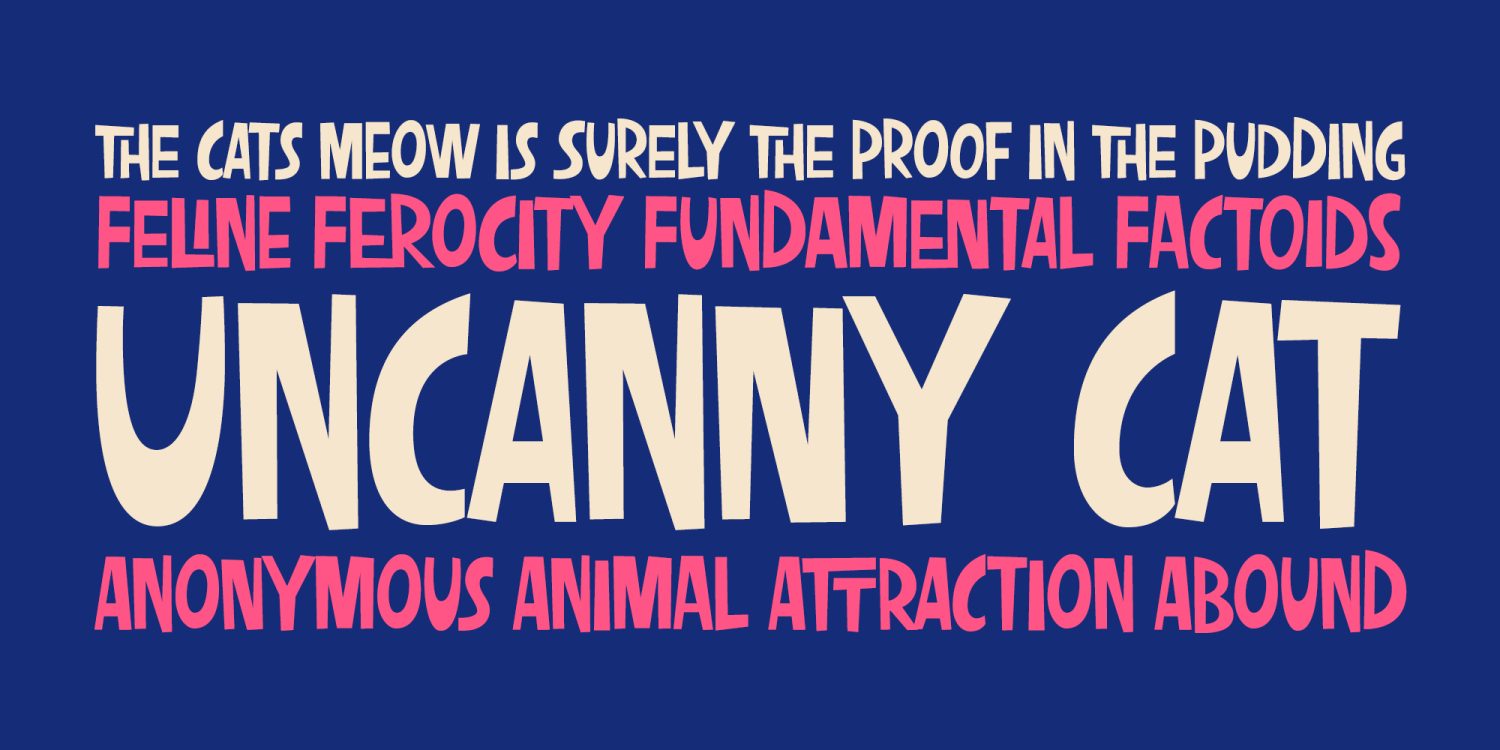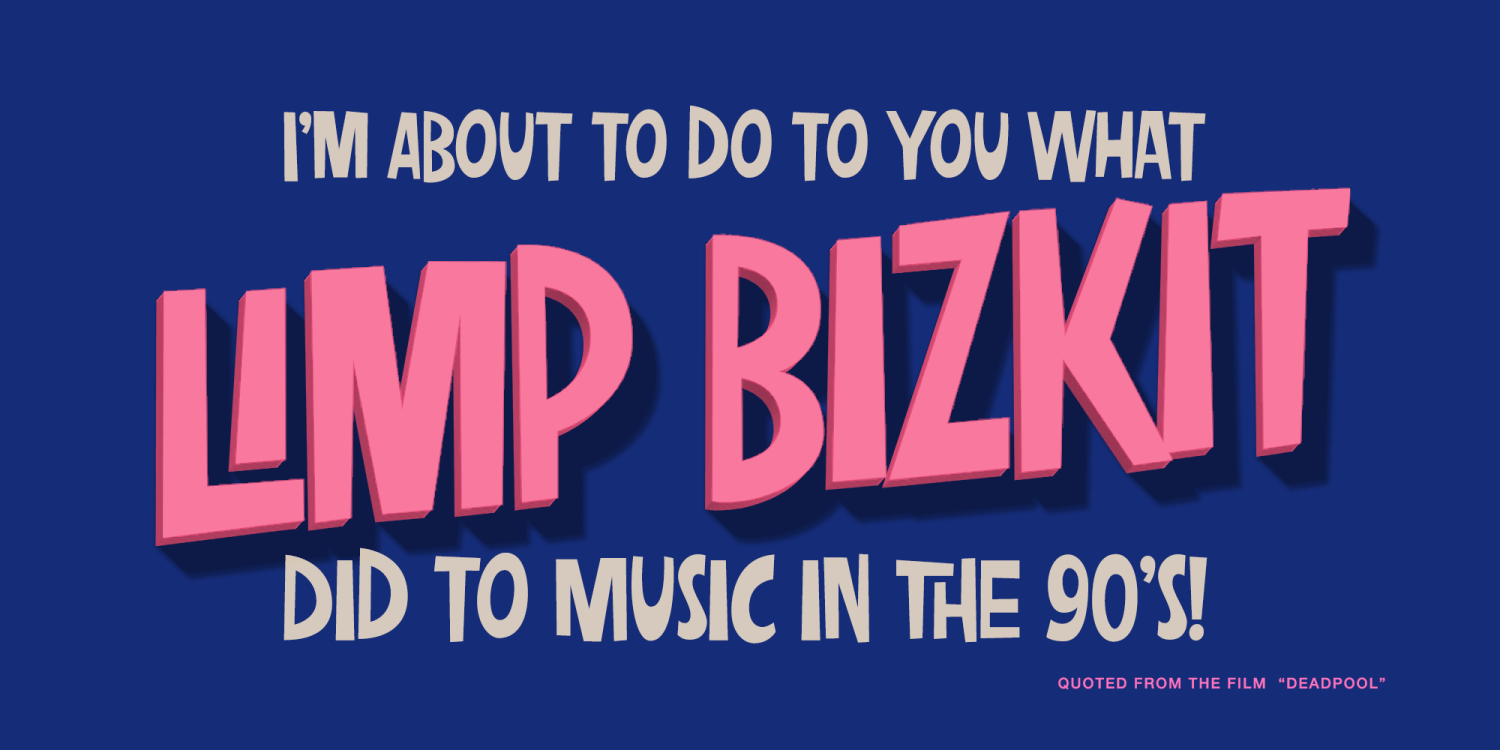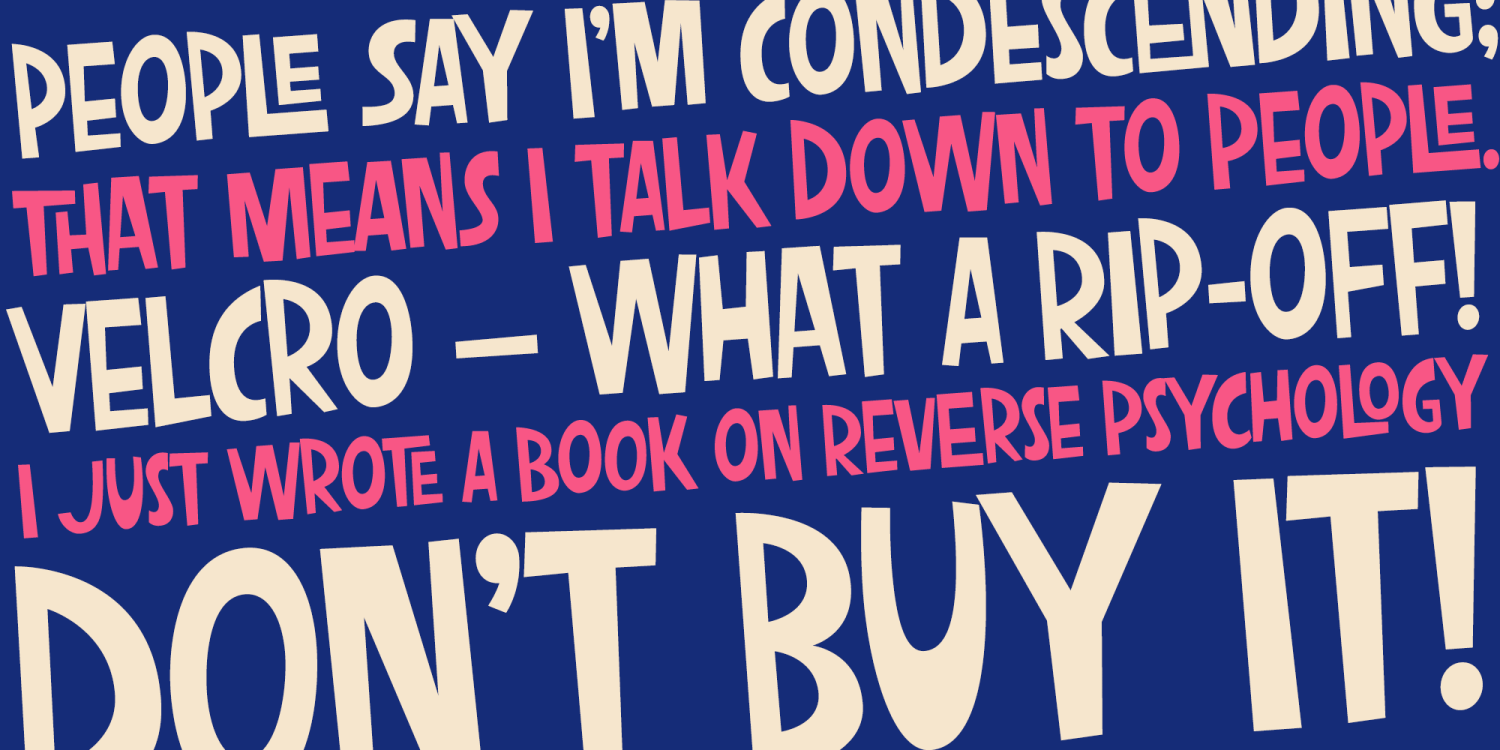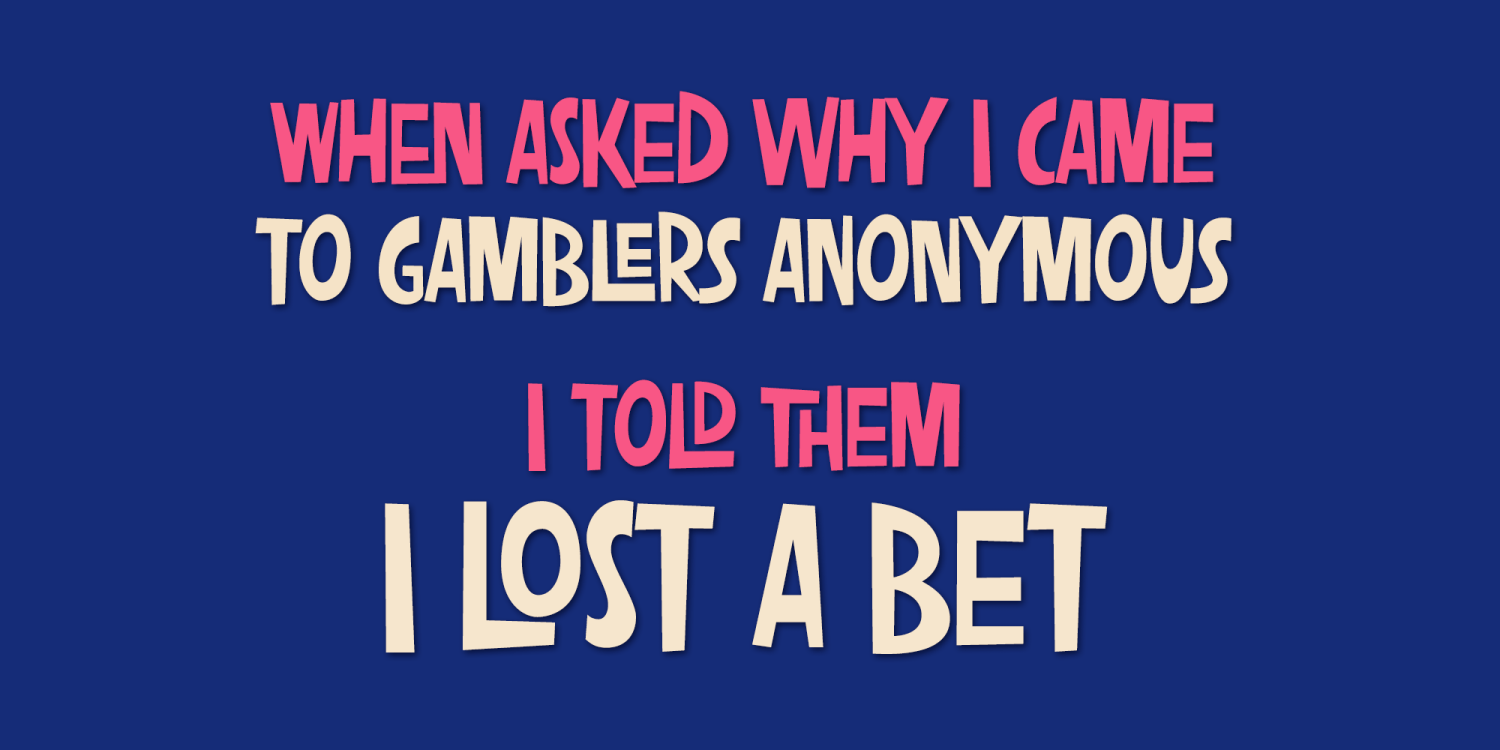
Uncanny Cat PB
Font Family by Pink Broccoli
Inspired by the 1977 anthology horror film called "Uncanny", Uncanny Cat PB captures all the awkward fun of the film's titling sequence. Feline revenge has never looked so good. This typeface was oodles of fun to flesh out, and is true to that purposefully awkward appeal that a lot of Pink Broccoli fonts are imbued with.
Loaded with a collection of ligatures that combine and nest letters against each other, lending to the unique typesetting of this "uncanny" font.